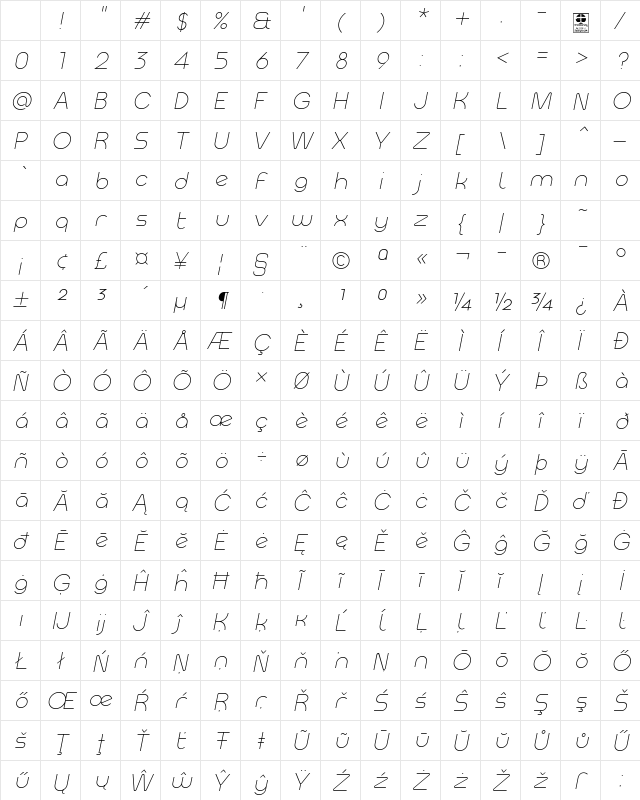
Meltix Light Italic Demo is a composed and adaptable typeface that performs quietly and consistently across a wide range of design contexts. The slanted form adds forward momentum and visual energy. Its slender proportions lend an understated elegance to any composition.
Pro Tip: Use Meltix Light Italic Demo for emphasis, pull quotes, and subheadings where its slanted energy can add rhythm to the layout.